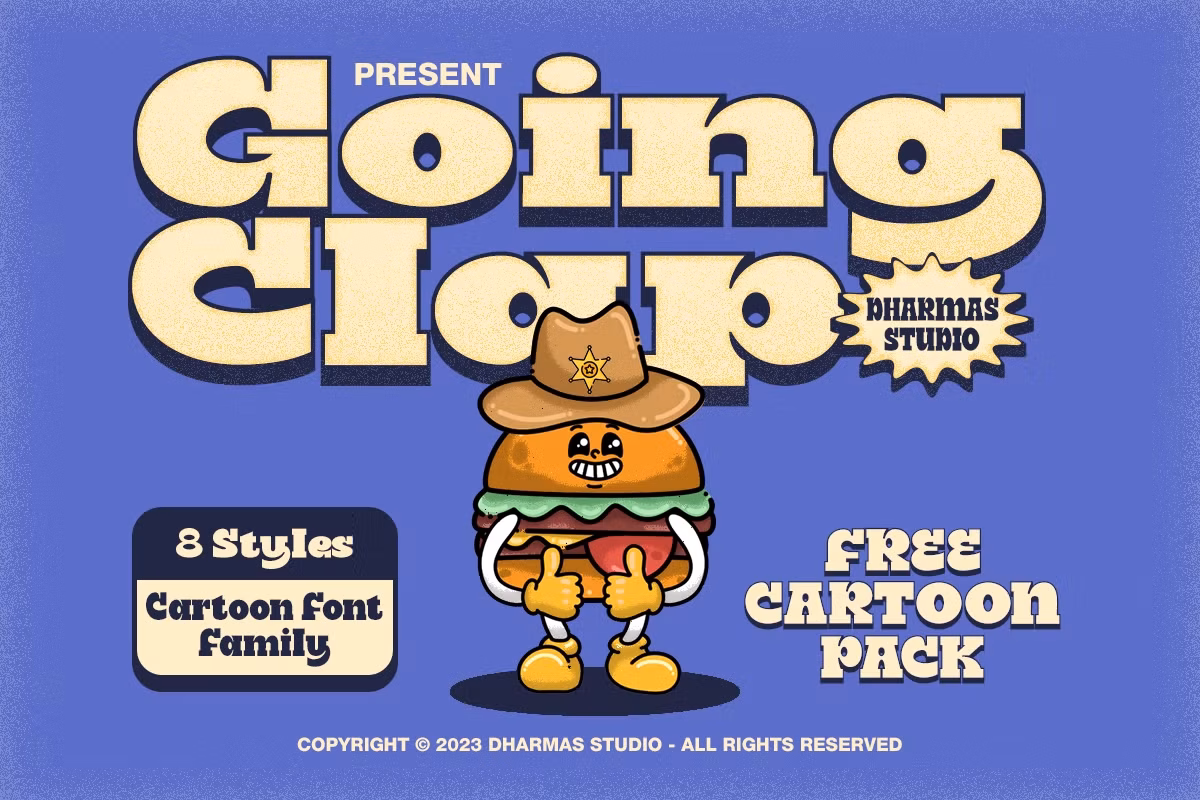
Going Clap - Free Bonus Assets Font Free Download is a bold and creative typeface that stands out with its playful energy and modern design. Please note: you must purchase this font for commercial use, but you can test it through a free download. Along with the font, this package includes exclusive bonus assets—such as graphic elements and logo templates—that make it perfect for branding, packaging, posters, and digital content creation.
Whether you're crafting a standout headline or designing a bold visual identity, Going Clap - Free Bonus Assets Font Free Download gives you the tools to be original and eye-catching. Its unique character shapes and versatile extras offer endless creative possibilities. Compatible with Adobe Illustrator, Photoshop, and Canva, this font bundle is a great addition to any designer’s toolkit. Download now for personal use and explore how Going Clap can energize your next project with fun and style.